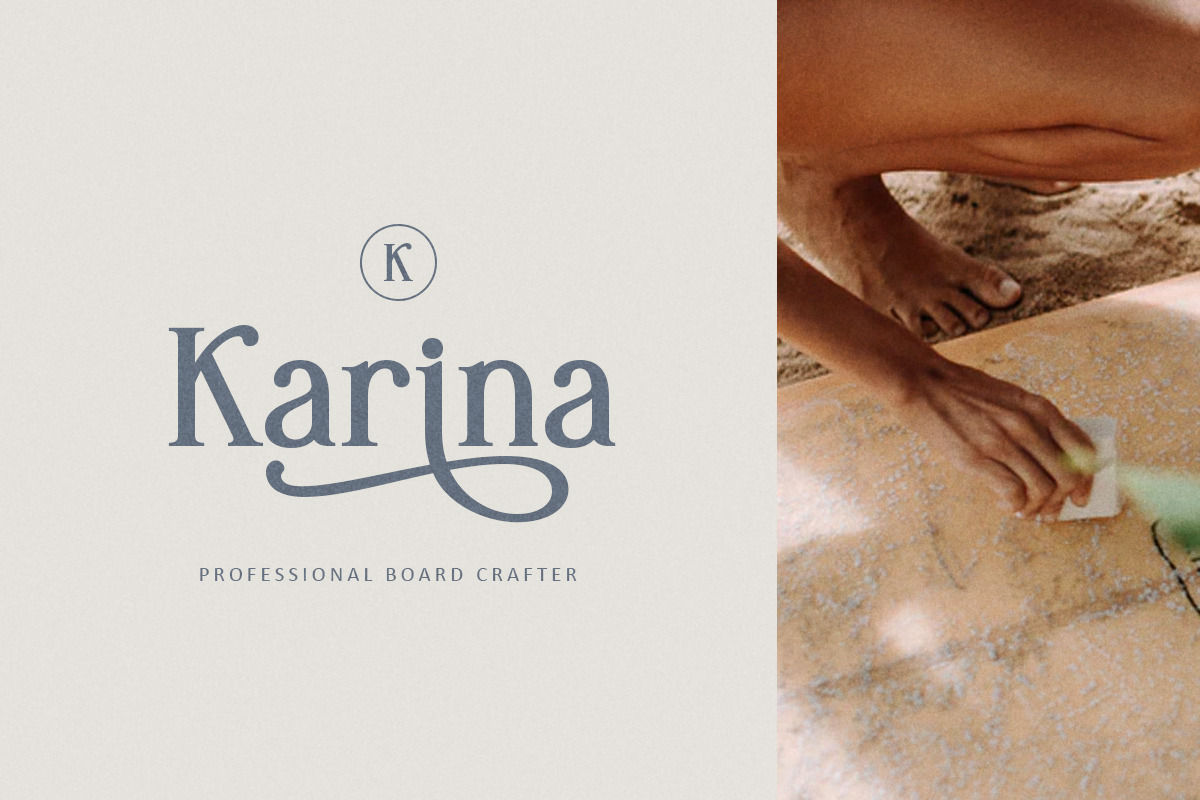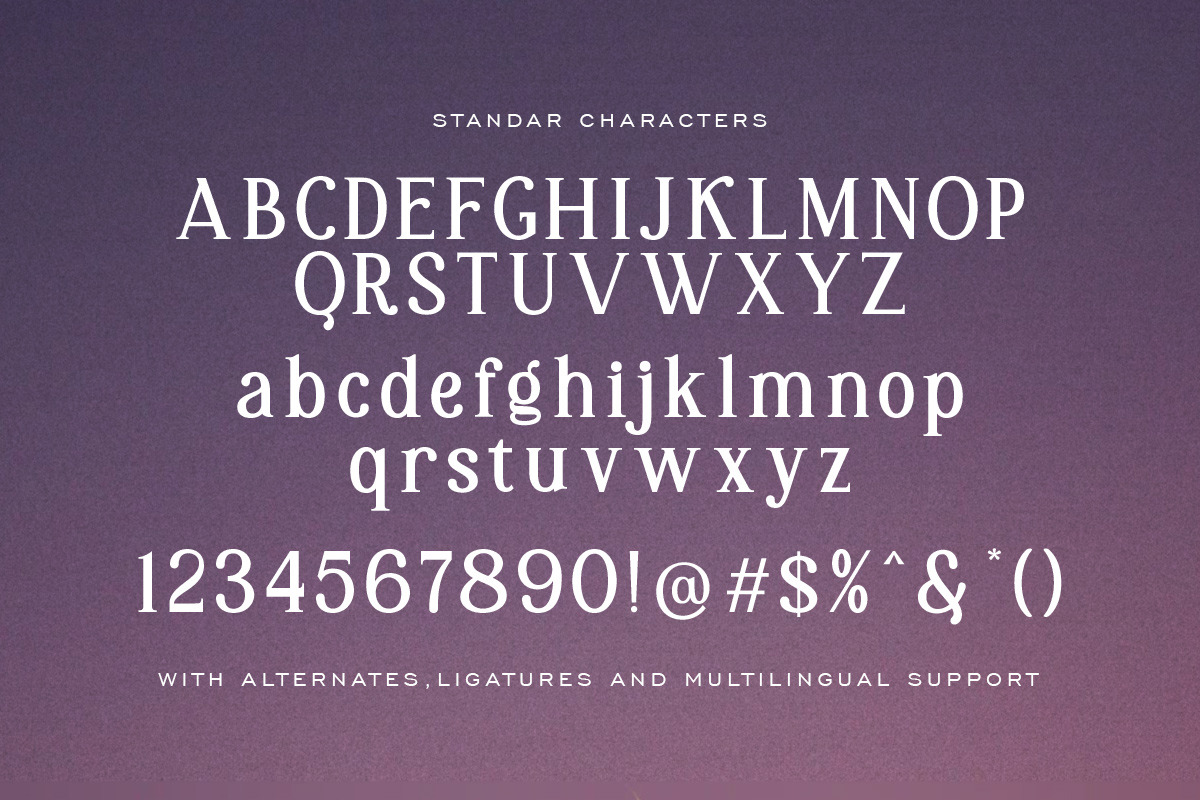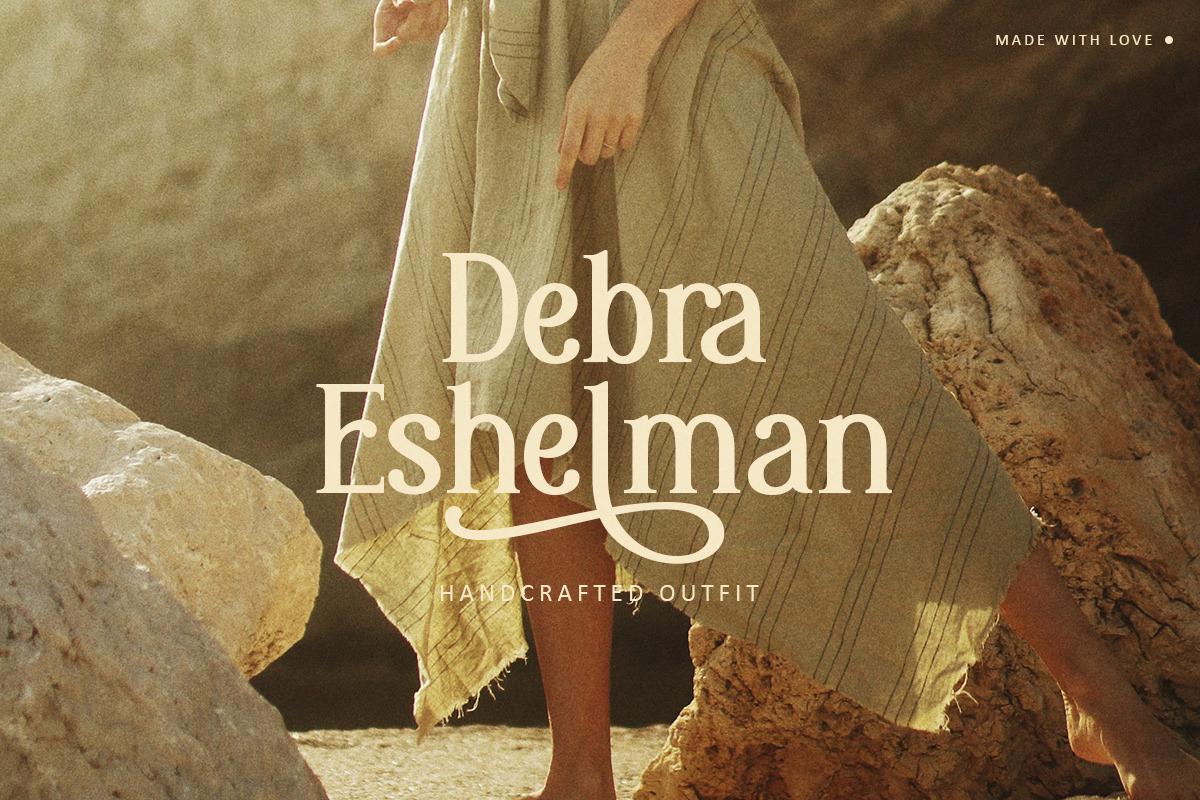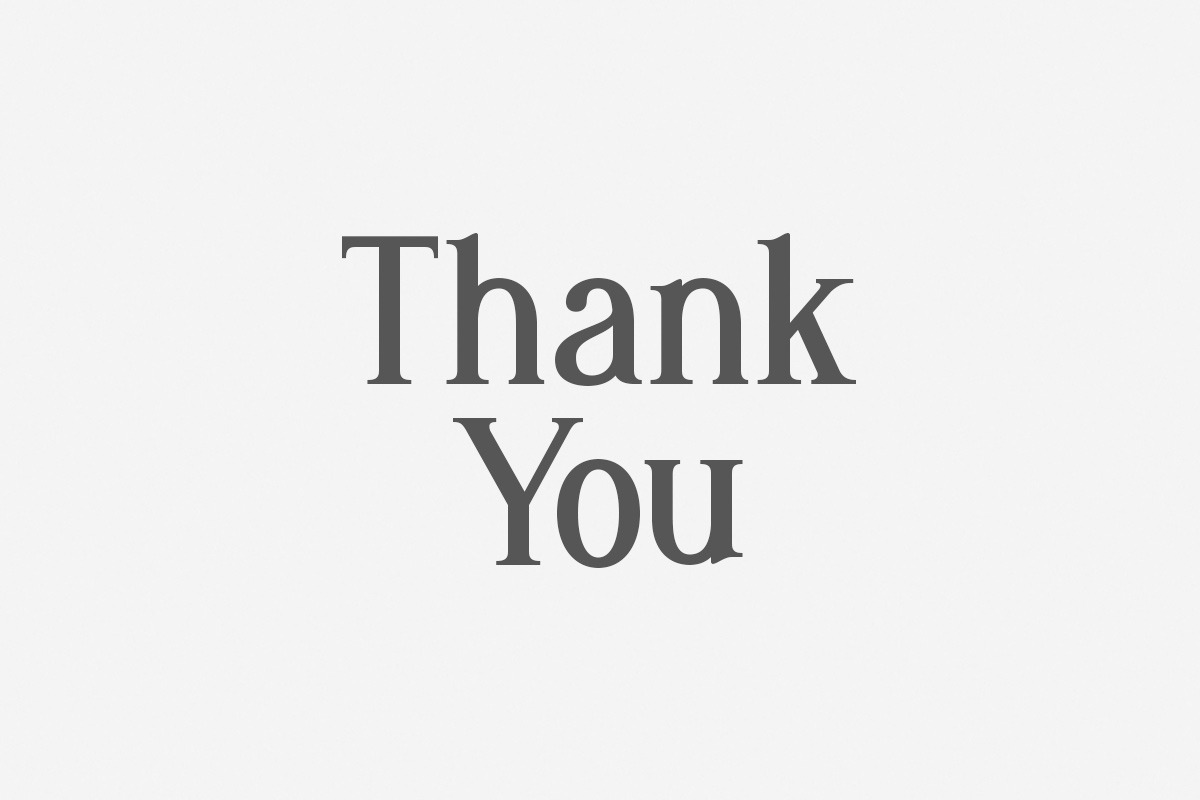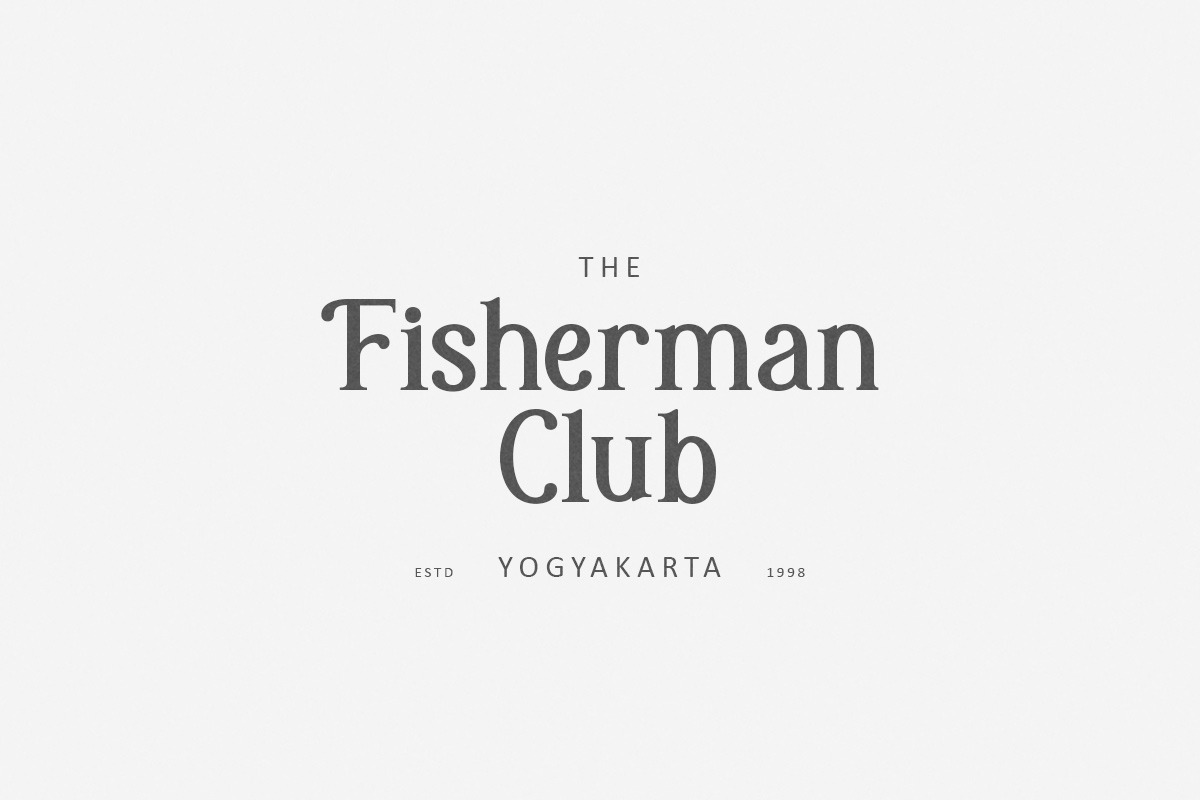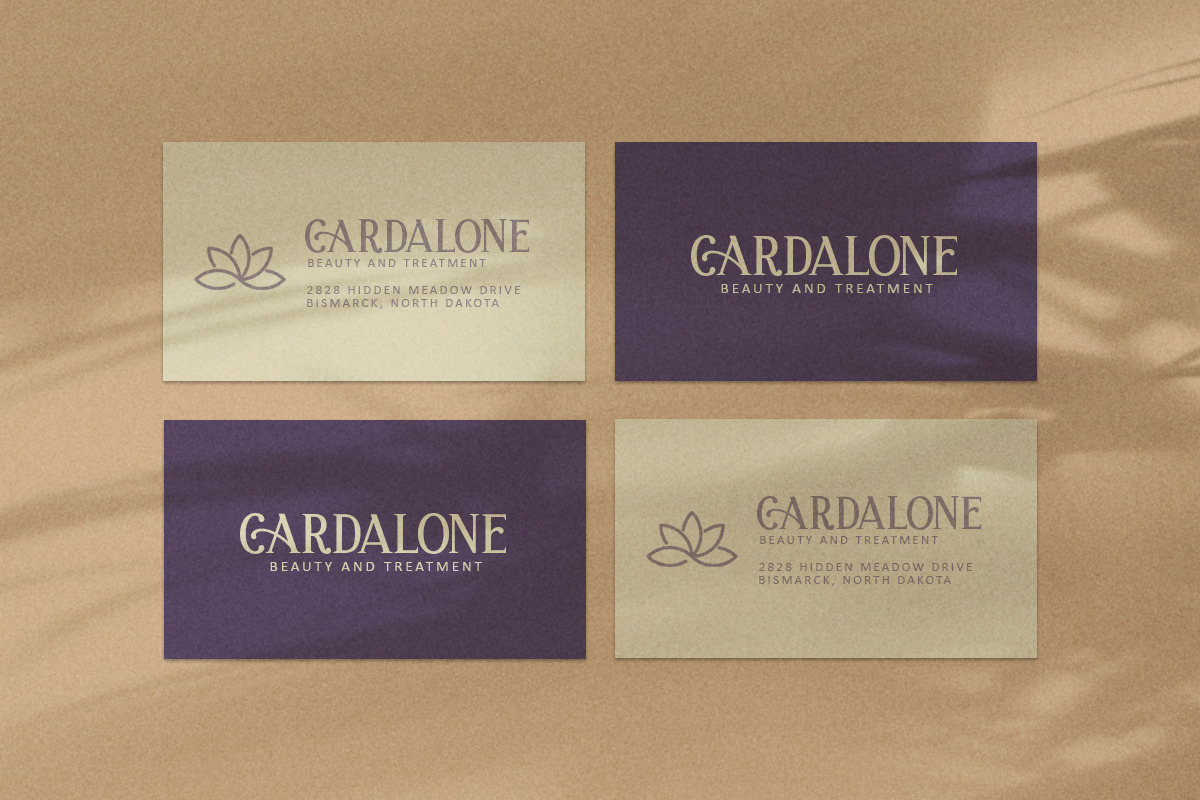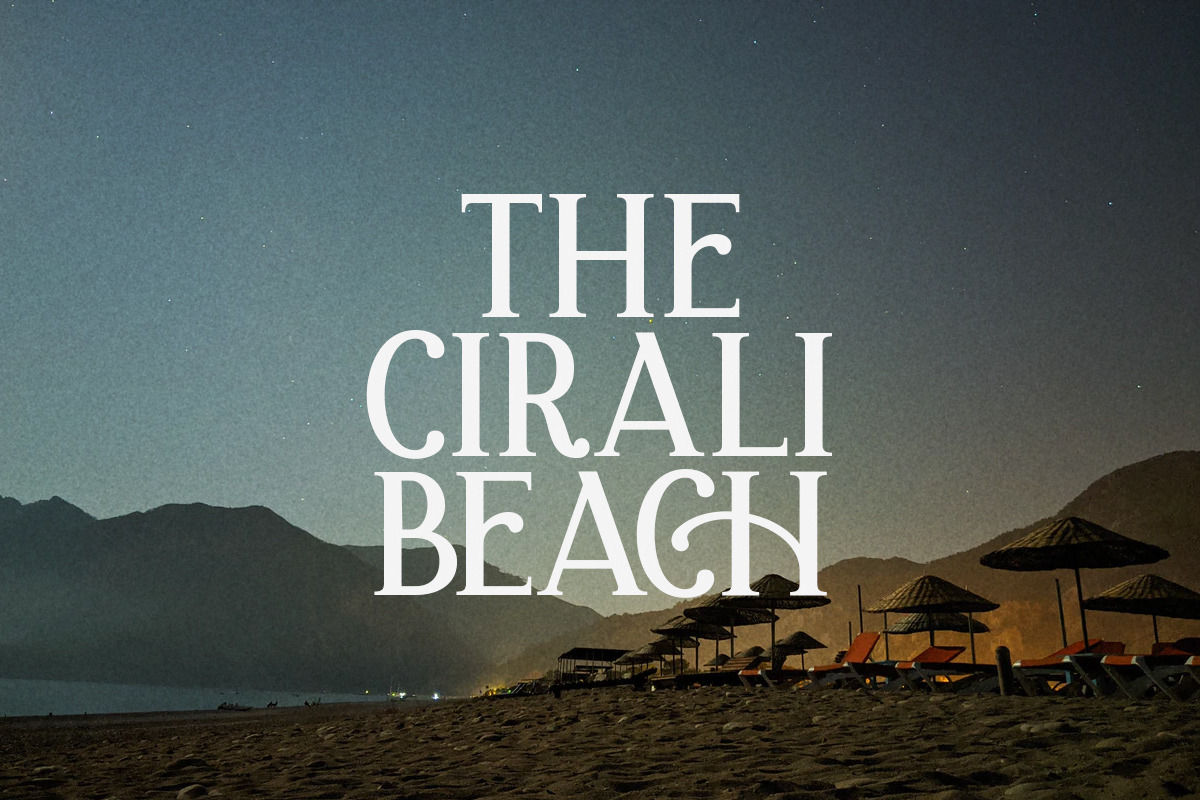
Kiara - Modern Serif
Introducing, Kiara. kiara is a modern serif font that has swash on the top and bottom which will make this font more special and stand out from the crowd. This font also has alternative characters in uppercase letters to provide choices at the beginning of the letter which will later be made as a logo or branding. This font can be used only with uppercase letters or a combination of uppercase and lowercase letters because it is just as good and attractive. This font comes with alternative character packs, ligatures and also has multilingual support. This font is designed with the aim of creating a logo or branding with a unique swash that can also be used as a magazine or book headline.